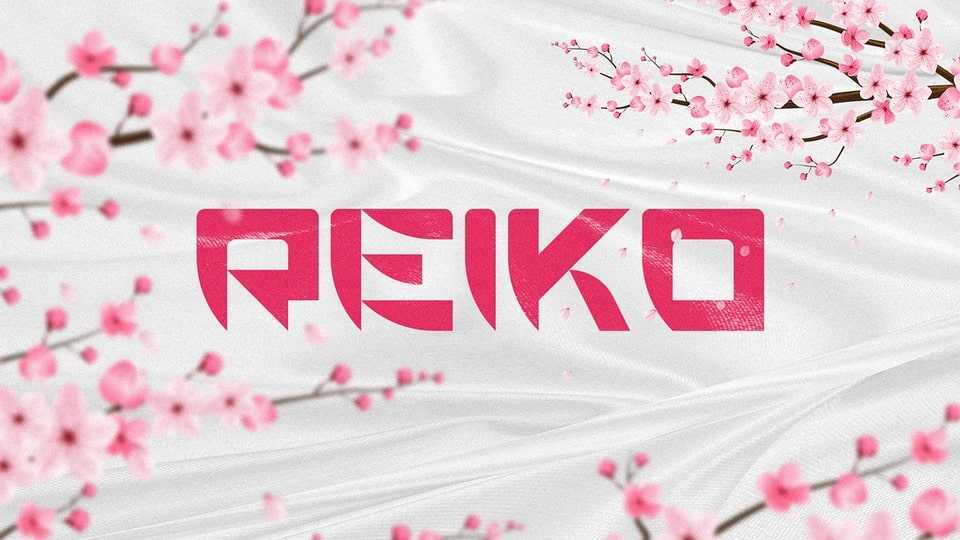
Download Reiko font, a futuristic display typeface inspired by the refined balance of Japanese design — combining geometric precision with elegant minimalism.
Designer: Muzaffer Yıldırım